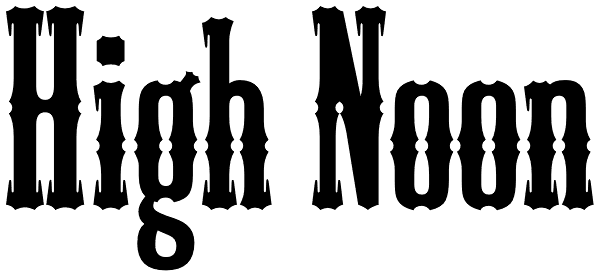
High Noon
Introducing High Noon; this very old font originally known as Antique Tuscan dates back into the 1800s and was available only as an uppercase font. Now with the addition of a new never-before-seen lowercase you'll find new uses for this old classic.